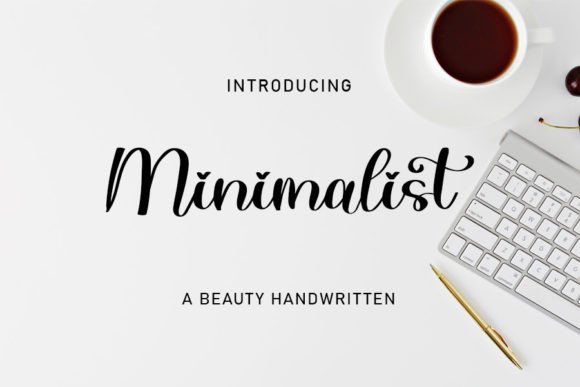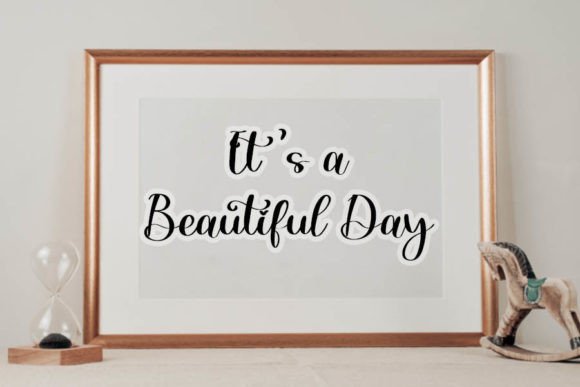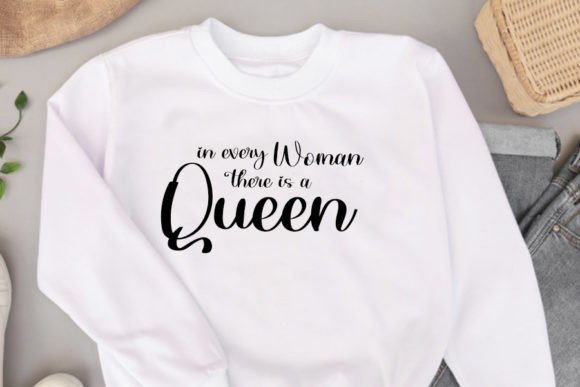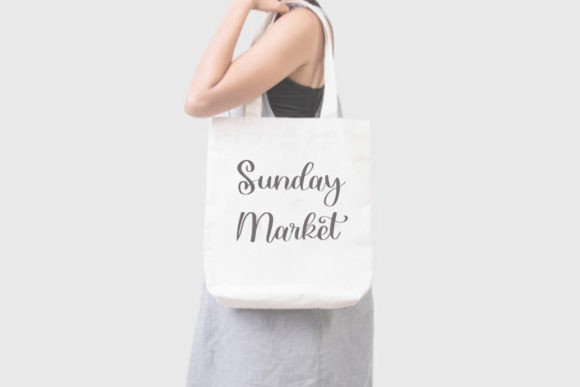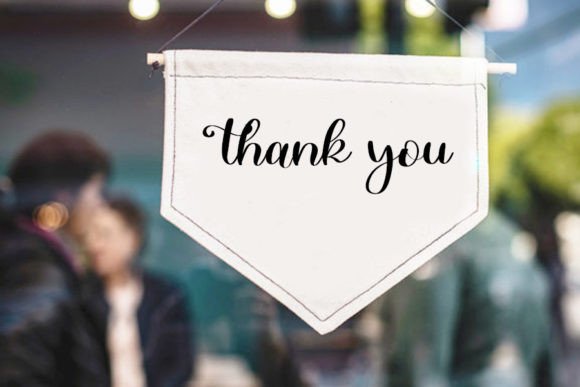
Minimalist Font
About Minimalist Font
Minimalist font is a stylish and elegant handwritten typeface designed to add a romantic and personal feel to a wide range of projects. Its clean yet charming style makes it a versatile choice for designers looking to create beautiful, heartfelt designs. Whether you are working on greeting cards, headlines, or branding, Minimalist font ensures a delicate and refined touch.
Elegant and Stylish Handwriting
The font features smooth, natural strokes with a simple yet elegant style. This handwritten script is perfect for adding personality without overwhelming your design. Its balanced letterforms offer clarity and readability, making it ideal for both print and digital applications.
Versatile Applications
Minimalist font is suitable for many design uses, including:
• Greeting cards and invitations
• Headlines and titles
• Social media graphics
• Branding and logos
• Packaging and labels
Its romantic flair adds warmth and charm to each project, making your designs feel personal and unique.
Perfect Pairings
Minimalist fon pairs well with sans-serif or light serif fonts to create harmonious and modern designs. Additionally, combining it with bolder fonts can create striking contrast and interest in your layouts.
Easy to Use and Read
The clean design ensures that Minimalist fon remains readable across different sizes and formats. Whether for a small label or a large headline, this font maintains its elegance and clarity.
Why Choose Minimalist Font?
Designers choose Minimalist fon because:
• It offers a stylish and romantic handwritten look
• It is versatile for many design projects
• It pairs well with various font styles
• It maintains clarity and readability
• It adds warmth and elegance to designs
Final Thoughts on Minimalist Font
In conclusion, Minimalist fon is a stylish handwritten script perfect for designers seeking elegance and romance in their projects. Add Minimalist fon to your collection to create beautiful, timeless designs that truly stand out.